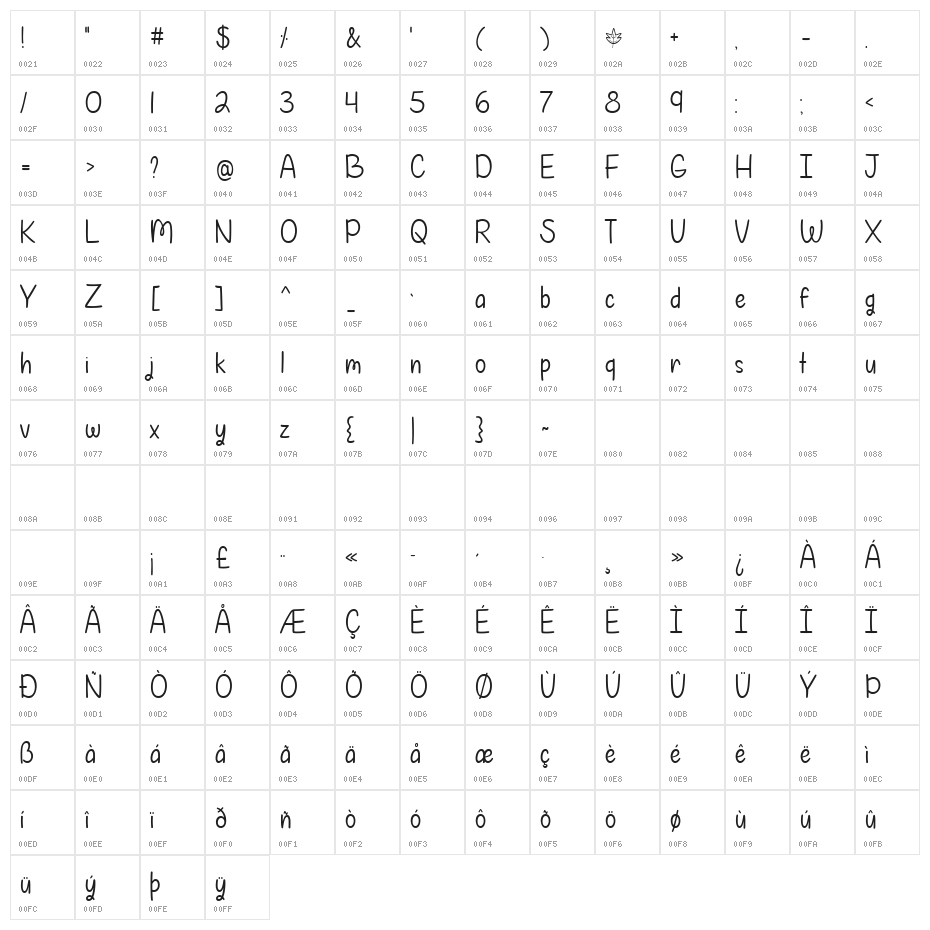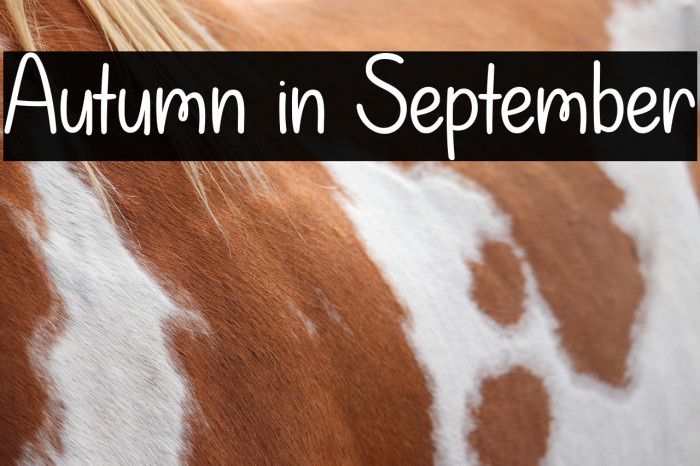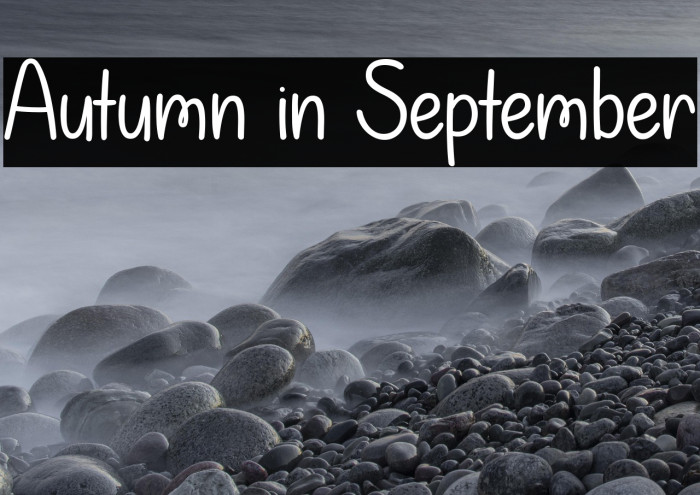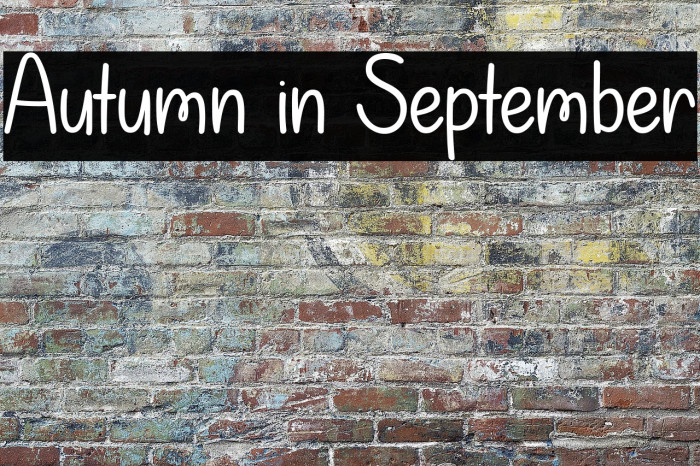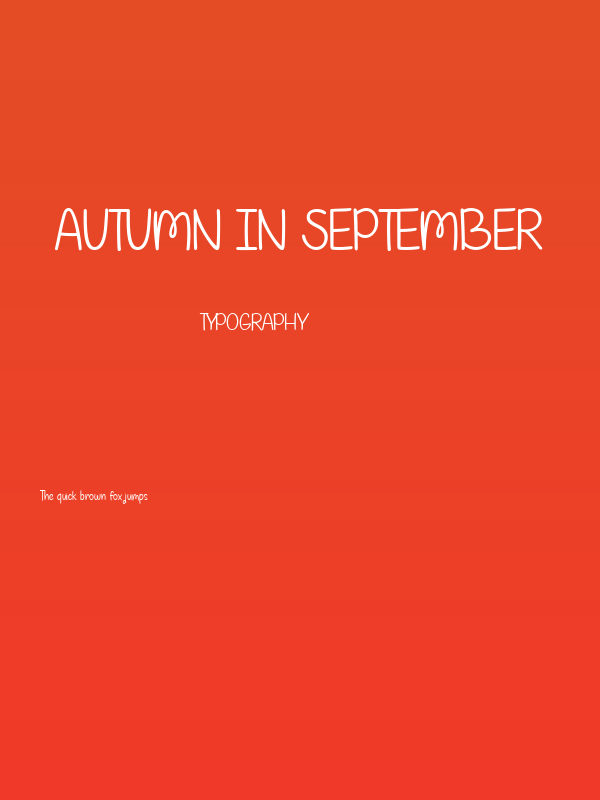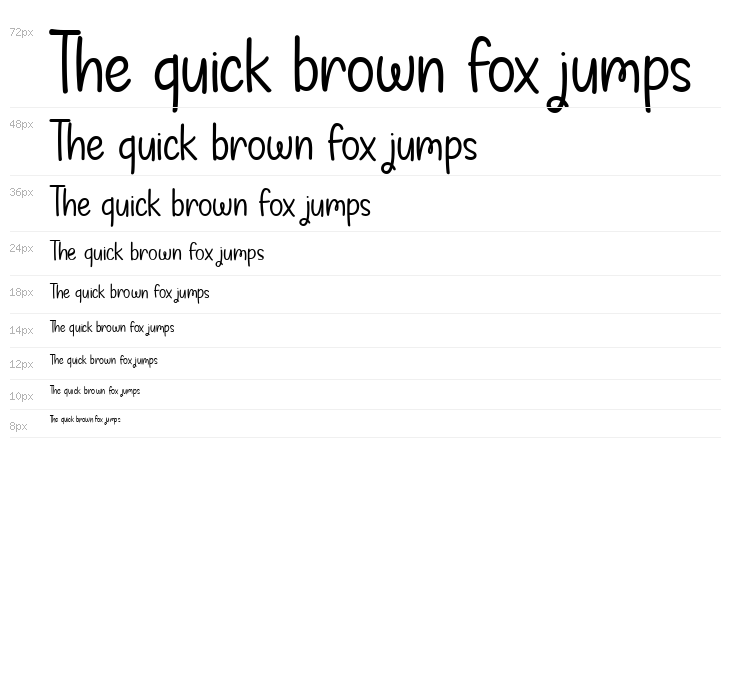
Autumn in September Font
Autumn in September Description
A playful, handwritten font with a casual and friendly appearance, featuring rounded edges and a slightly uneven baseline.
| Overall Style | Playful, Casual |
| Use Case | Headlines, Informal text, Branding |
| Proposed Projects | Greeting cards, children's books, casual branding. |